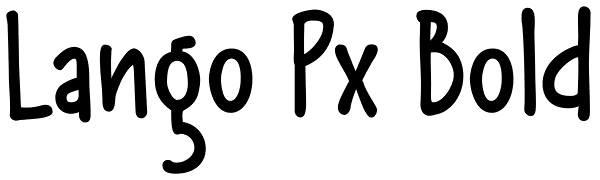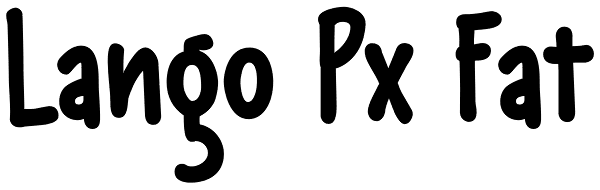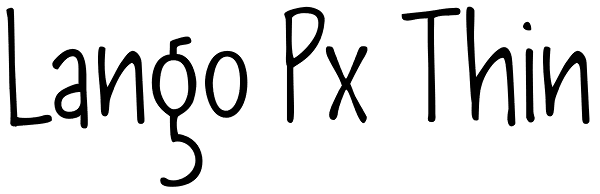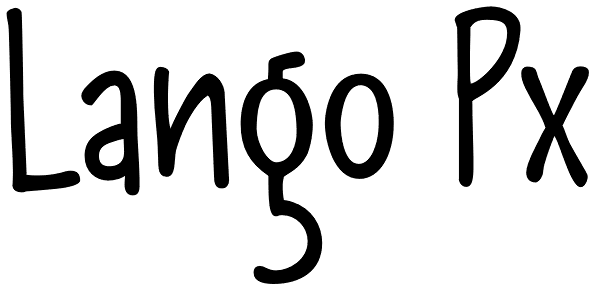
Lango Px
Lango is a hand drawn face, long and lean with an extended character support and good legibility. It has a casual look without being too informal, and is good for scrapbooking, greeting cards, or wherever a handmade touch is needed.